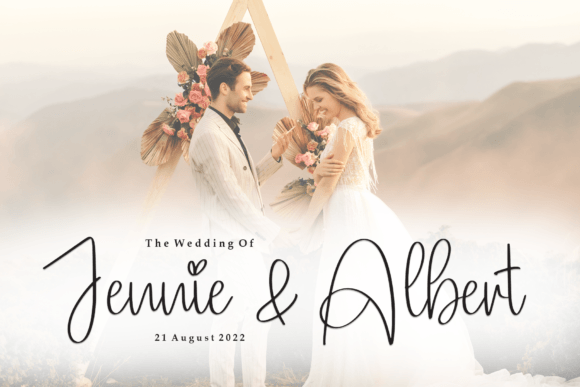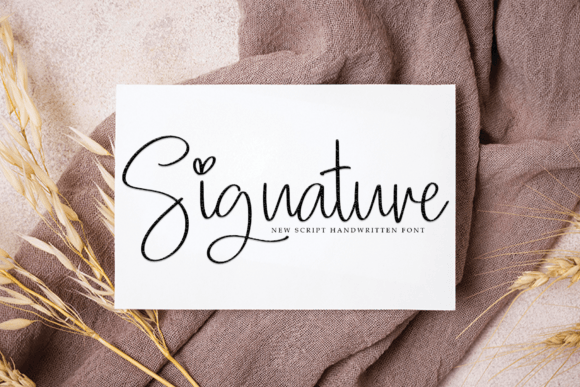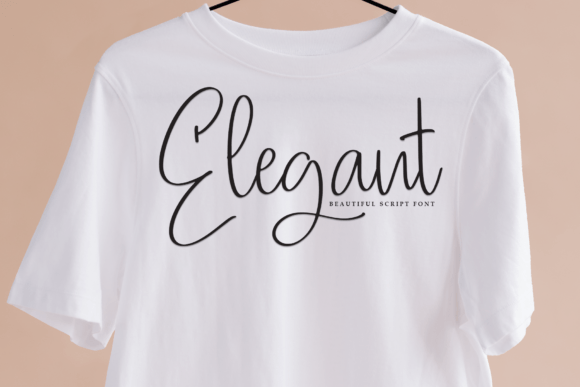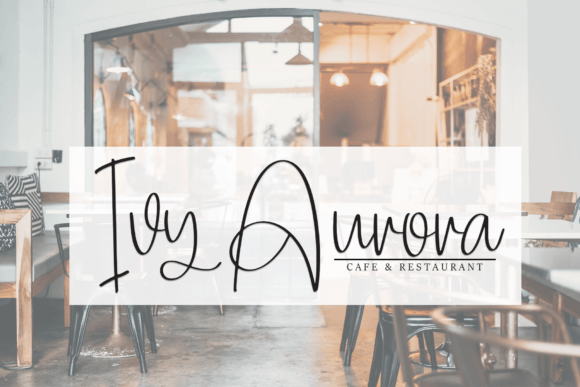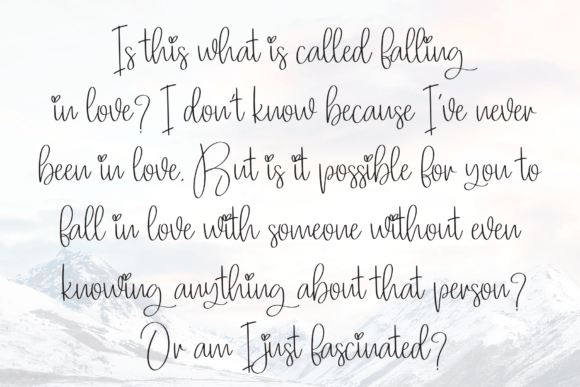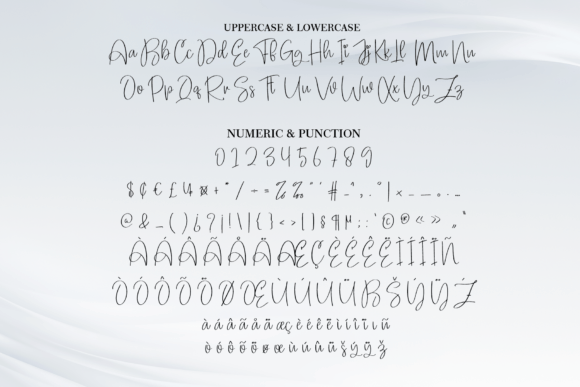
Unleashing Your Creativity with Background Font
Have you ever sat down with a blank sheet of paper and a pen, waiting for the perfect idea to strike? The moment when the words start flowing, and your creativity knows no bounds? It’s a feeling that’s hard to replicate, but with the right tools, you can get there every time.
Meet Background Font, an elegant and dainty handwritten font that’s designed to bring a touch of whimsy to your designs. This charming font features sweet and delicate swashes that are perfect for adding a personal touch to your projects. Whether you’re working on letterheads, titles, or stationery, Background Font is the perfect choice for making your creations stand out.
As a designer, you know how important it is to have the right tools at your disposal. That’s why Background Font is a valuable addition to your toolkit. With its unique look and feel, you’ll be able to create designs that are truly one-of-a-kind and reflect your personal style.
Key Features of Background Font
Design Review: Background Font
Overall, I’d say Background Font is an interesting take on typography. It offers a unique way to display text, but it’s not without its limitations. ✨
- Unconventional design approach that can add a touch of personality to a website or application.
- Wide range of customization options, including color, size, and alignment.
- Can be used effectively in conjunction with other design elements to create a visually appealing composition.
- May be difficult to read for users with visual impairments due to the unconventional font design.
- Can be overwhelming if used excessively, detracting from the overall message or content.
- May not be suitable for formal or professional applications where a more traditional font is preferred.
Background Font is an innovative tool that can add a unique touch to your design. However, it’s essential to use it thoughtfully and consider the potential limitations. With careful application, it can be a powerful design element that enhances the user experience.